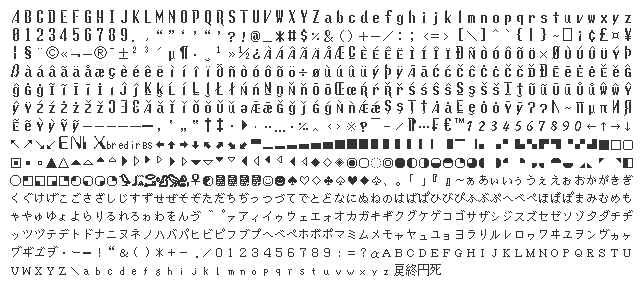
Font name: | Gaiatype |
Author: | Caveras |
Note by Caveras | |
Gaiatype is a generously spaced sans-serif pixel font recreation based on the original main text font appearing in the SNES video game Terranigma, known as Tenchi Souzou in Japan, developed by Quintet and released by Enix in 1995. This font includes the full set of Japanese hiragana and katakana characters appearing in the Japanese version of the game and many additional characters designed to match the spirit and style of the original font design. The Terranigma typeface is one variant of Quintet's trademark font used in all games of their SNES RPG trilogy (the first two games being Soul Blazer and Illusion of Gaia). It features the widest spacing of all three variants, and if you're interested in another one you might want to take a look at Codeman38's Illusion of Gaia recreation, called "Lunchtime Doubly So". To recreate the original in-game appearance of this font, I recommend to choose font sizes that are multiples of 16pt and avoid any anti-aliasing or other font smoothing methods. Features: • 767 characters total • Monospaced sans-serif typeface • Countless additional special characters, diacritic variants, etc. • Complete original Japanese hiragana and katakana character sets • Different variants of number characters Please contact me for any commercial use of my fonts. Copyright © 2016 Caveras. All rights reserved. |